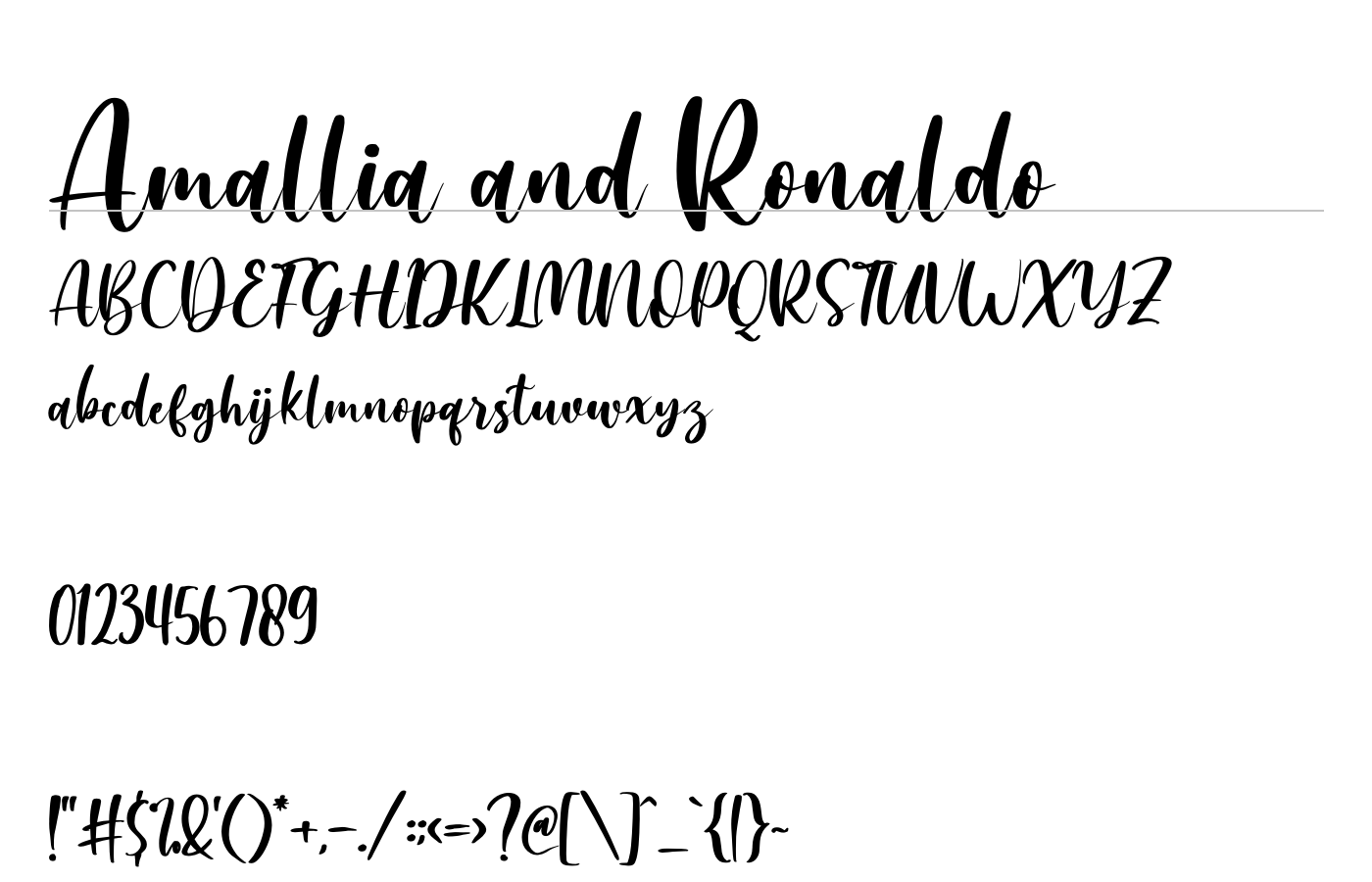
Amallia and Ronaldo is a stylish script font that features elegant, flowing letterforms with a smooth, handwritten feel. Its medium weight and slightly condensed width make it perfect for adding a personal and sophisticated touch to branding, invitations, and headlines. The font’s lively curves and distinct characters bring a modern yet graceful flair, ideal for fashion, beauty, and creative projects seeking a chic, approachable look.
Amallia and Ronaldo Font
About Amallia and Ronaldo Font
| Font family | Amallia and Ronaldo Font |